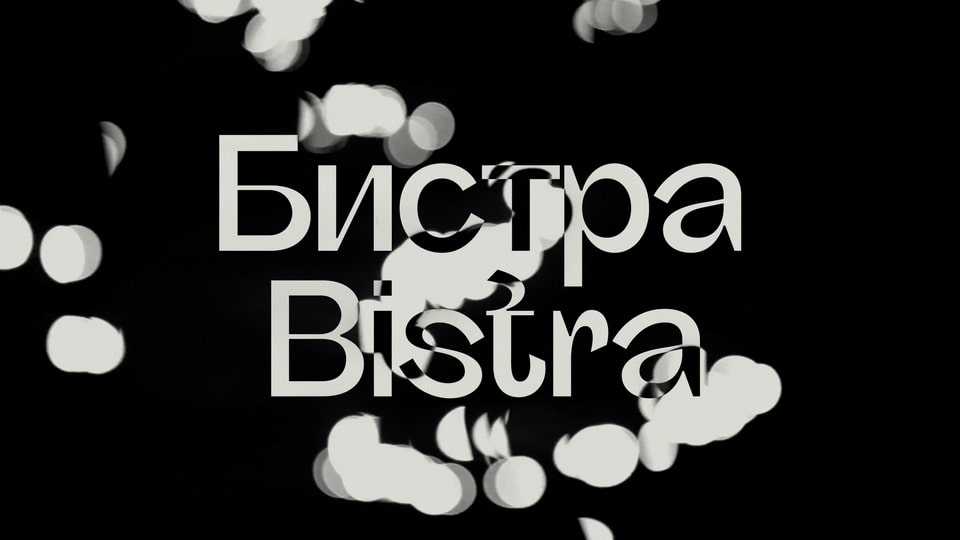
Download KS Bistra font, a semi-grotesque typeface with atypical contrast behavior, combining natural and reverse contrast within a humanist framework.
Designer: Korak Studio